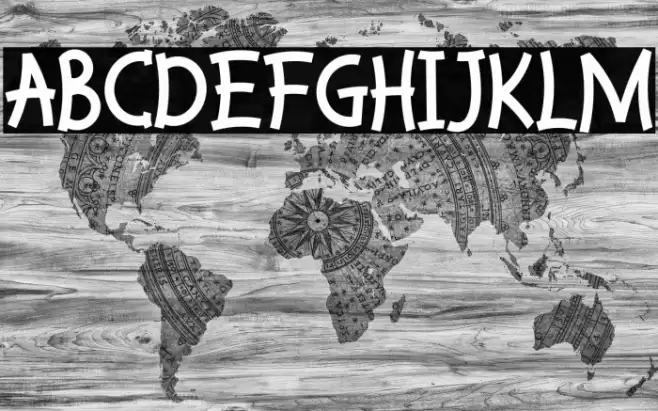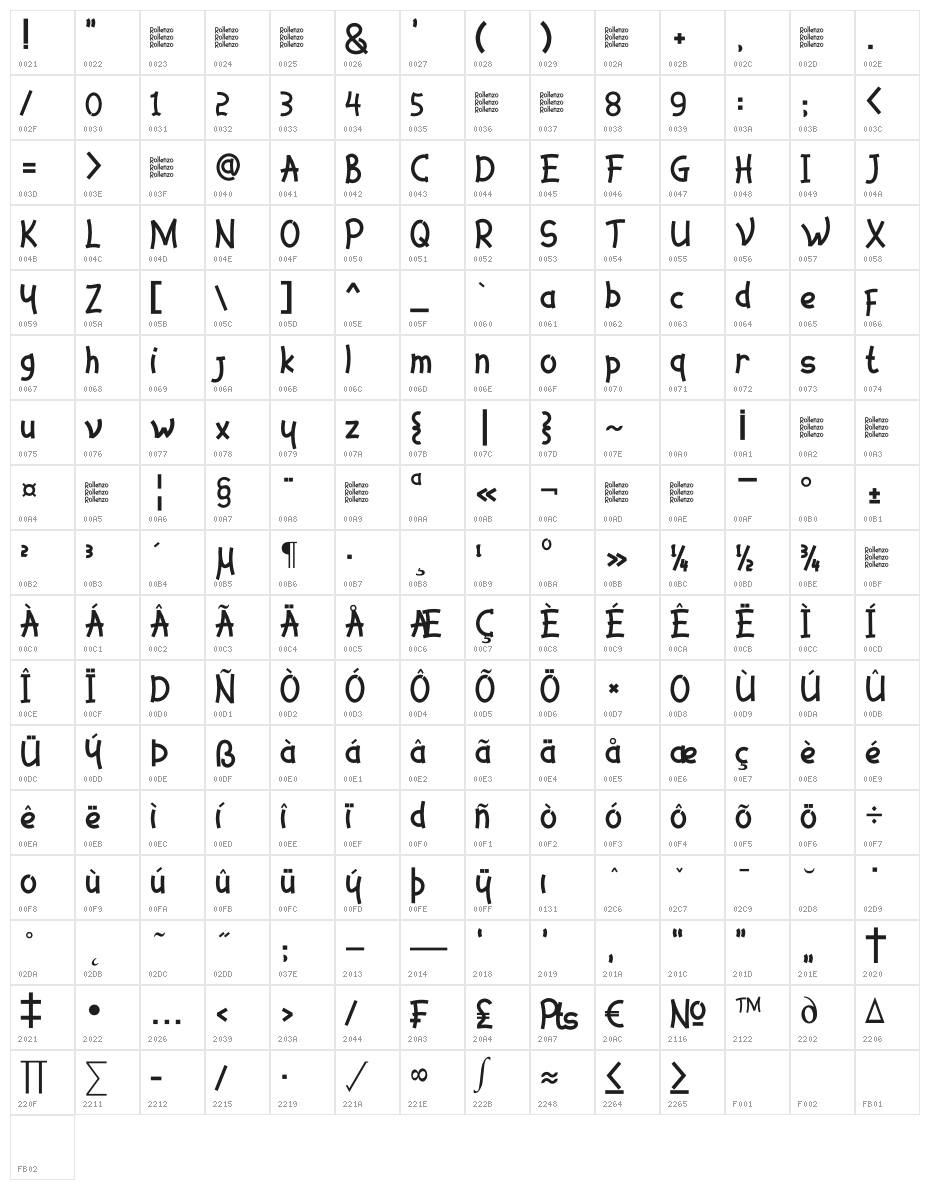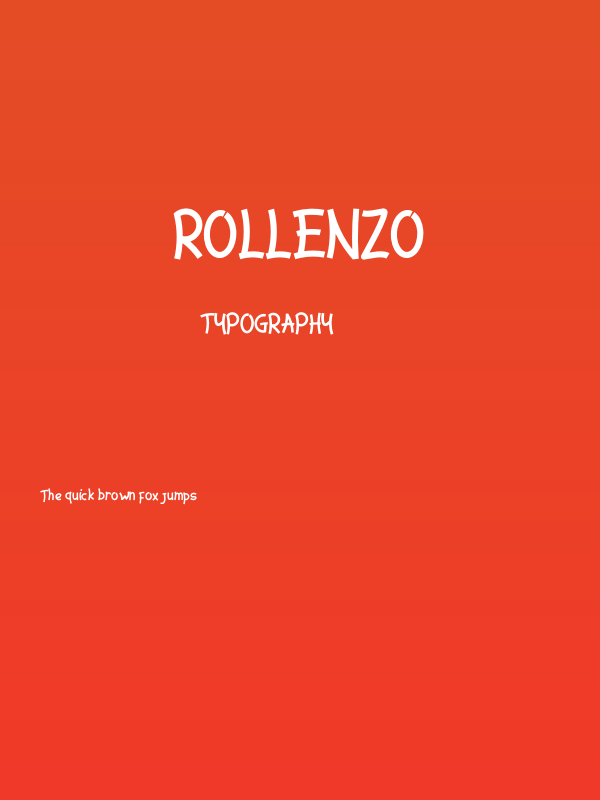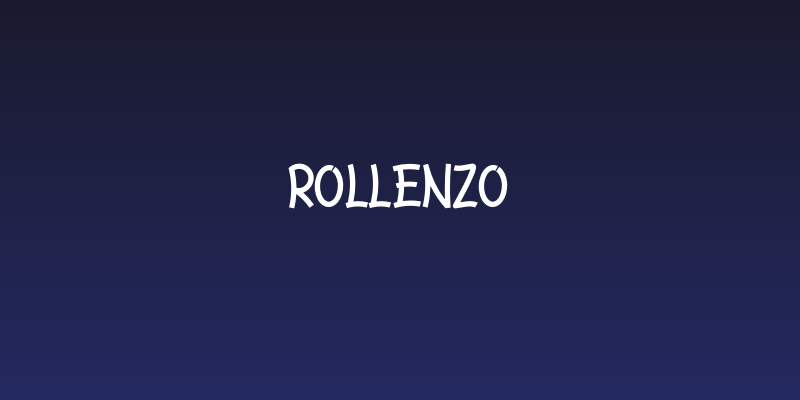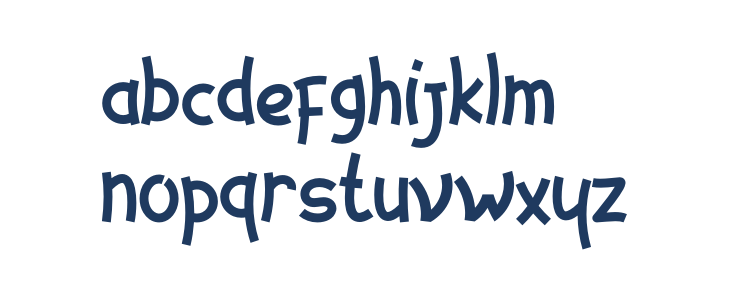
Rollenzo Font
Rollenzo Description
This font features a playful and dynamic style with a slightly irregular and hand-drawn appearance. The characters are bold and have a whimsical flair, with varying stroke widths that add to its lively character. The uppercase letters are tall and slightly narrow, while the lowercase letters maintain a consistent height, creating a harmonious balance. The numerals are distinct and easy to read, complementing the overall style. Special characters are creatively designed, enhancing the font's unique personality. This font is well-suited for projects that require a fun and engaging look.
A playful, bold font with a hand-drawn, whimsical style from Cartoon fonts.
- Proposed Projects: Ideal for children's books, playful branding, posters, and creative invitations.
- Overall Style: Playful, Whimsical